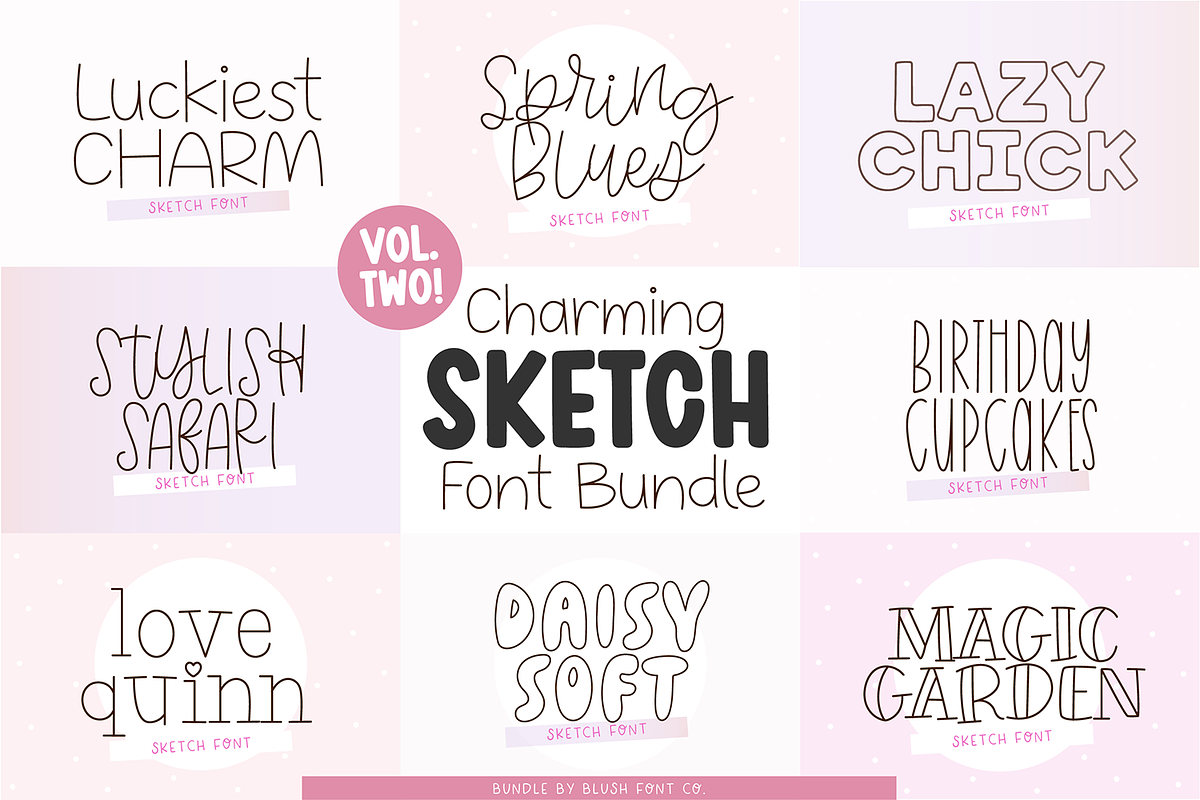
Charming Sketch Font Bundle 2 Free Download is a delightful collection of hand-drawn fonts designed to bring personality, creativity, and warmth to your design projects. This bundle includes a variety of sketch-style typefaces that are perfect for greeting cards, craft projects, logos, DIY branding, and playful social media content.
Each font in this bundle features a whimsical, handcrafted look that’s both fun and versatile. Whether you're going for a cozy, rustic vibe or an artsy, childlike feel, this pack offers just the right mix of charm and uniqueness. Charming Sketch Font Bundle 2 Free Download gives you the opportunity to test the full range of fonts for personal use before deciding on a commercial license.
Add a creative, hand-sketched edge to your next project with this one-of-a-kind font collection!